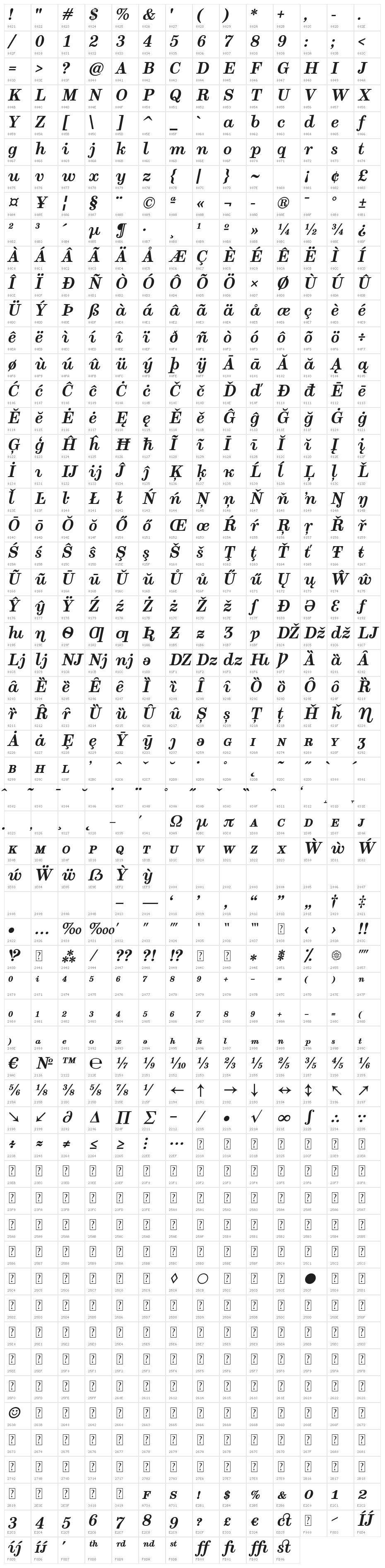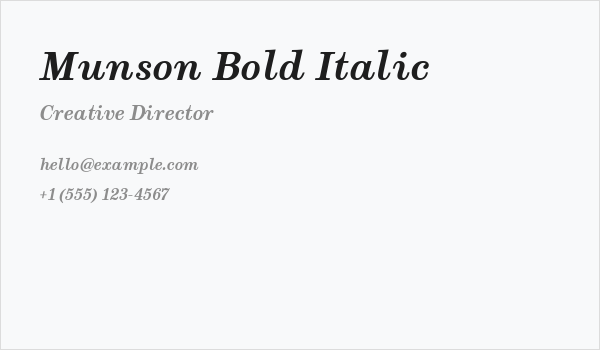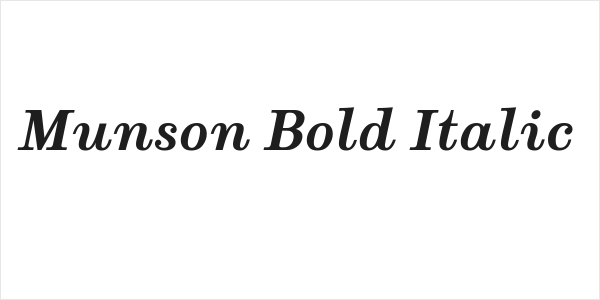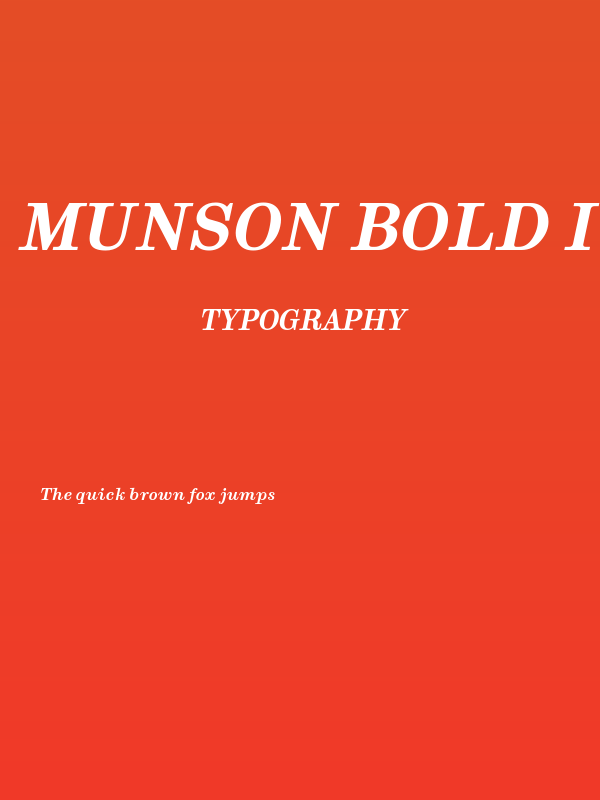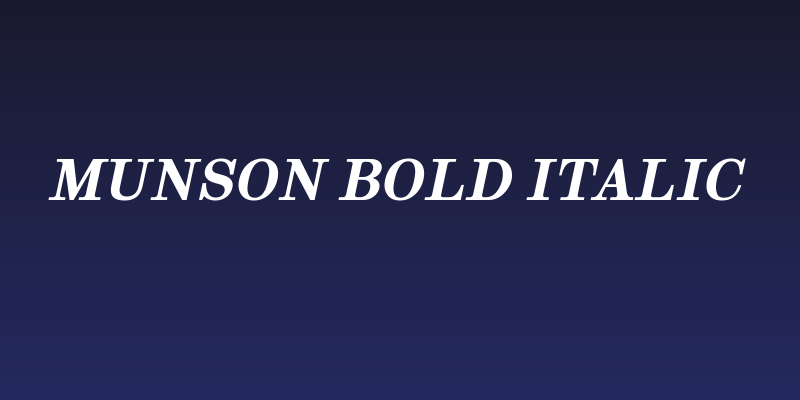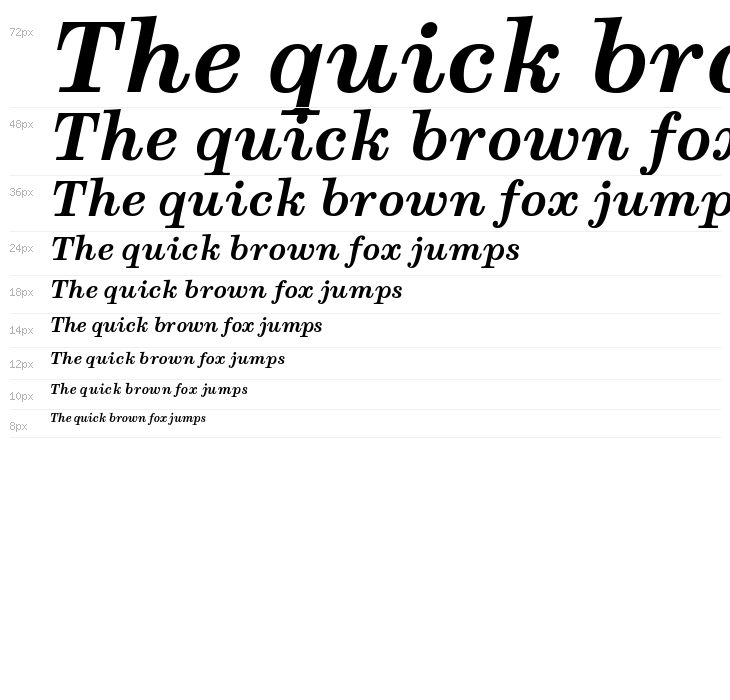
Munson Bold Italic Font
Munson Bold Italic Description
This font exhibits a bold and italicized style, characterized by its strong and dynamic presence. The letters are slanted, adding a sense of motion and elegance. The strokes are thick and consistent, providing a robust appearance. The serifs are pronounced, contributing to a classic and sophisticated look. The numerals and special characters maintain the same bold and italicized features, ensuring uniformity across all glyphs. This font is well-suited for making a statement, with its boldness drawing attention while the italicization adds a touch of refinement.
| Use Case | Headlines, Logos, Editorial Design |
| Proposed Projects | Ideal for headlines, branding, and editorial design where a bold and elegant statement is needed. |